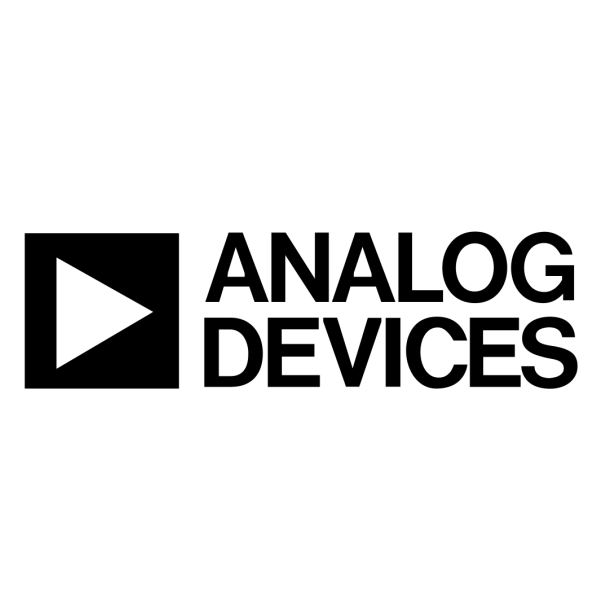
Analog Devices Font
ElectronicsAnalog Devices is a leading global producer of high-performance analog, mixed-signal, and digital signal processing solutions for the industrial, automotive, and communications markets.
The logo of the company is probably designed using Akzidenz Grotesk Medium font, with a slight alteration to the letter “C”. This commercial font can be viewed and purchased here.